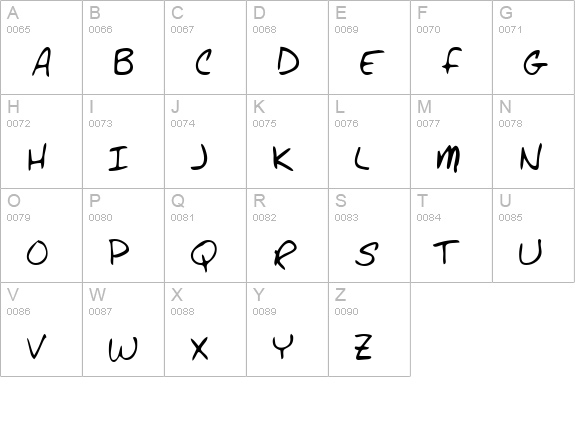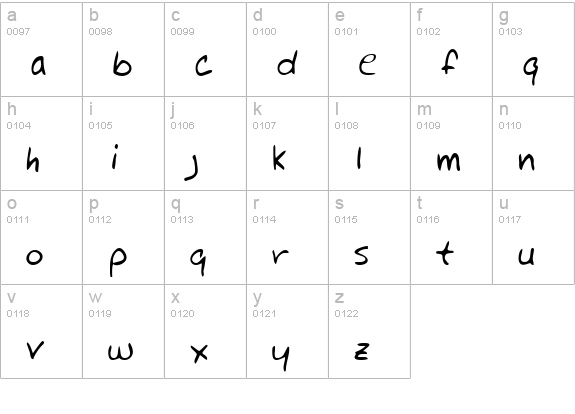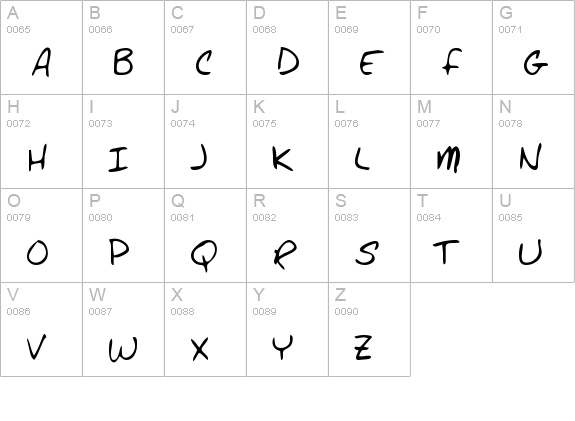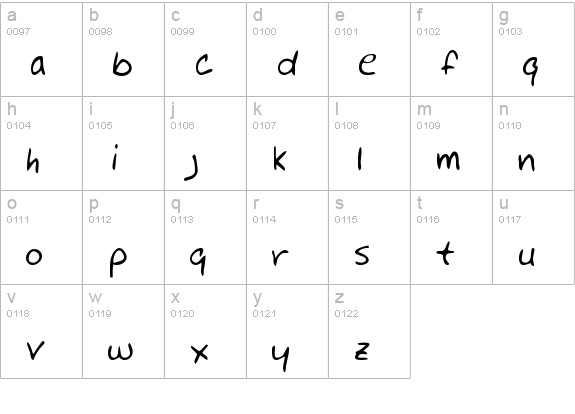
JohnsHand Regular Font Details
JohnsHand Regular is the standard, neutral variant in the JohnsHand typeface family \xE2\x80\x94 well suited to general body text, paragraphs, and standard typographic work.
JohnsHand Regular is a charming and versatile handwritten font that adds a personal touch to any project. With its natural and flowing strokes, this font captures the essence of casual handwriting, making it perfect for a wide range of designs, from invitations to branding materials. What makes JohnsHand Regular even more appealing is that it is available for free download at FontsMarket.com. This means you can easily access this delightful font and use it in your projects without any cost. Whether you're looking to create a warm and friendly atmosphere or add a touch of creativity to your designs, JohnsHand Regular is the perfect choice. Download it today and let your creativity shine!